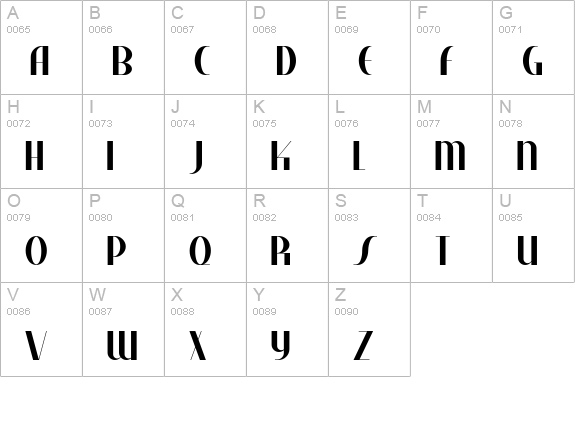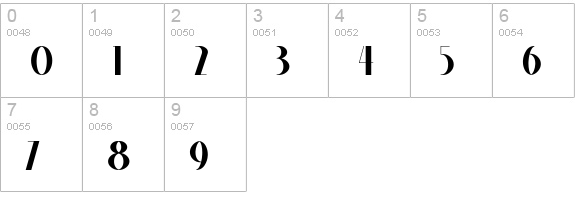
Studebaker Font Details
Studebaker font is a classic and elegant typeface that exudes sophistication and charm. With its timeless appeal and versatile design, this font is perfect for a wide range of projects, from branding to editorial design. The sleek lines and unique character shapes of Studebaker font make it stand out from the crowd and add a touch of class to any design. What's even better is that Studebaker font is available for free download at FontsMarket.com. Now you can easily access this beautiful font and elevate your projects with its stylish and refined look. Don't miss out on the opportunity to enhance your designs with the timeless elegance of Studebaker font - download it today and take your creations to the next level!